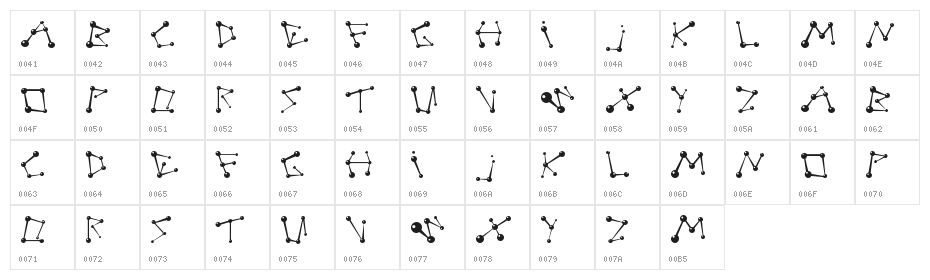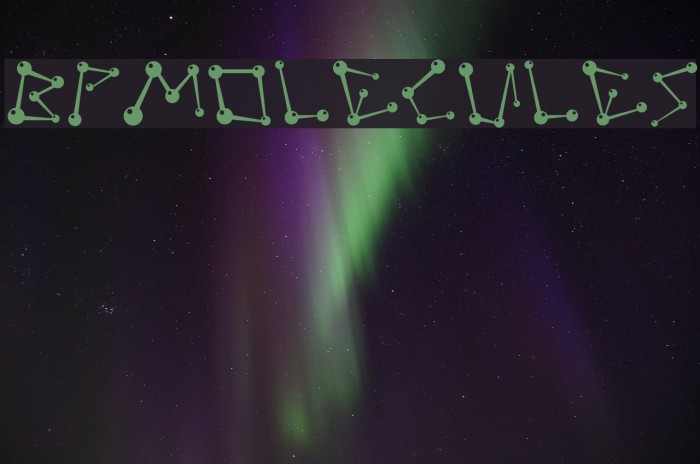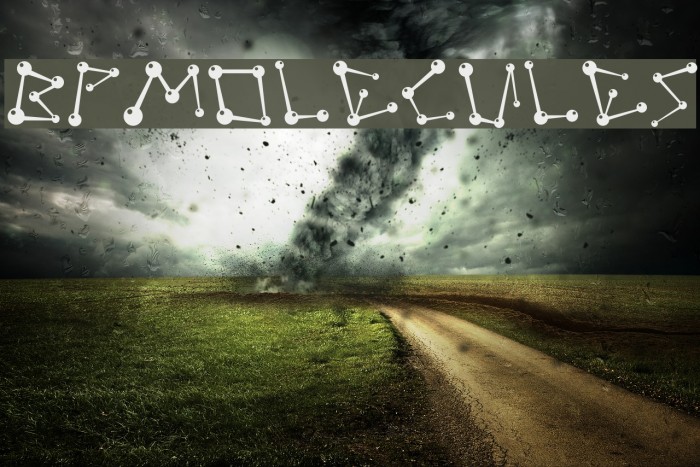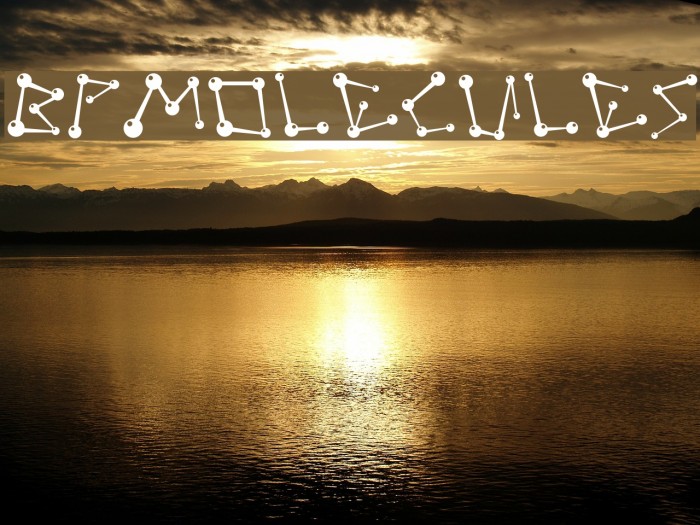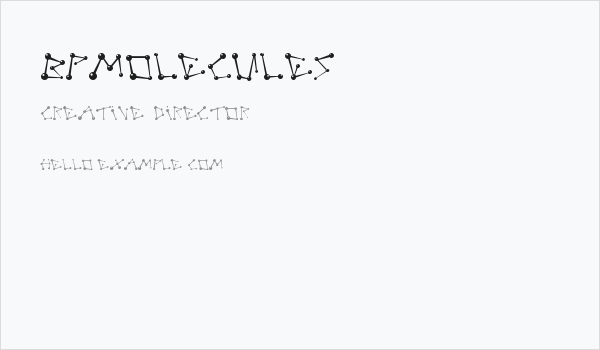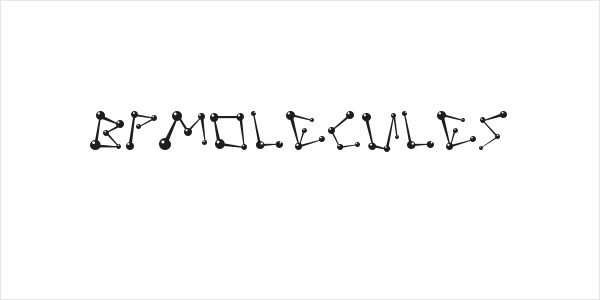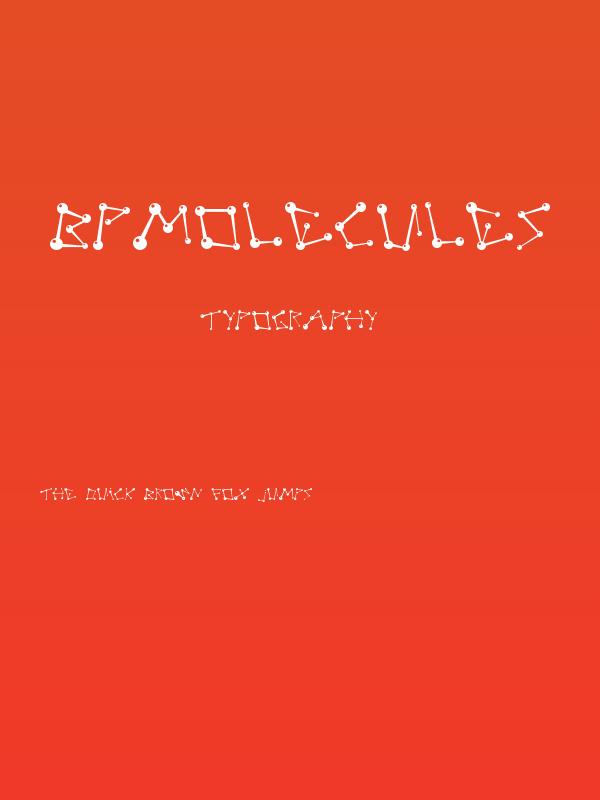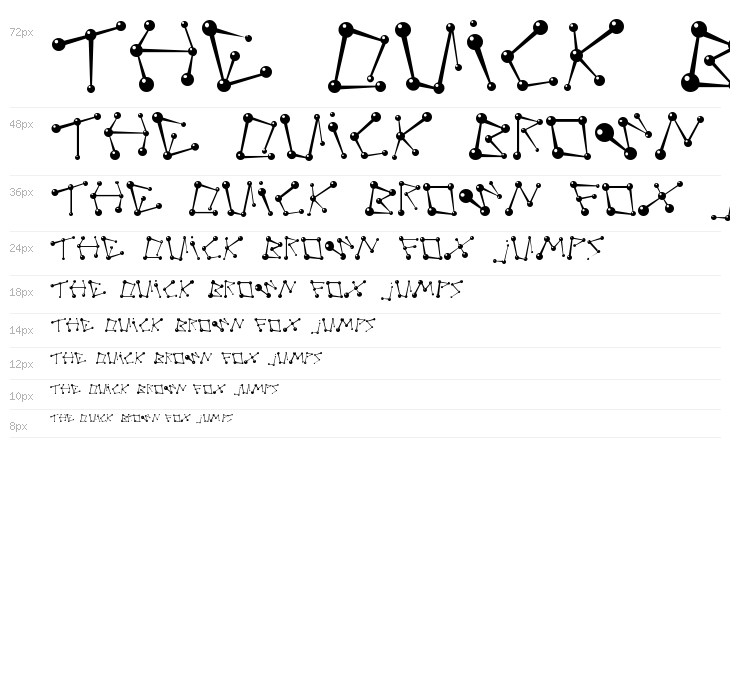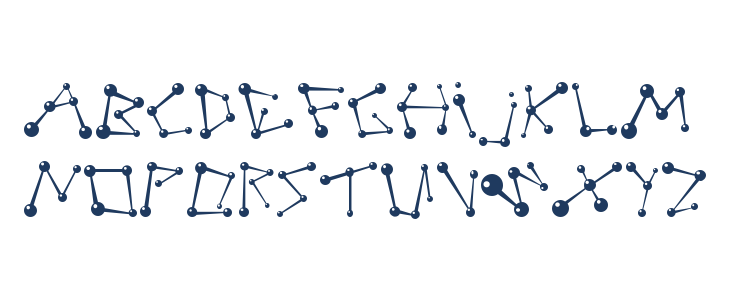
BPmolecules Font
BPmolecules Description
This font features a unique and creative design that mimics the appearance of molecular structures. Each character is composed of dots and connecting lines, resembling atomic bonds. The playful and scientific aesthetic makes it stand out, offering a visually engaging experience. The font maintains a consistent style across uppercase and lowercase letters, as well as numbers and special characters. Its design is both decorative and thematic, making it ideal for projects that require a scientific or educational theme. The font's intricate details and distinctive look make it suitable for creative and eye-catching designs.
| Proposed Projects | Ideal for science-themed posters, educational materials, creative branding, and unique invitations. |